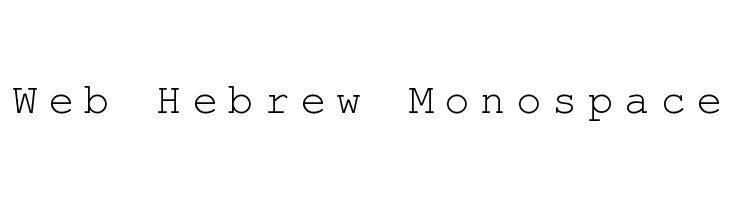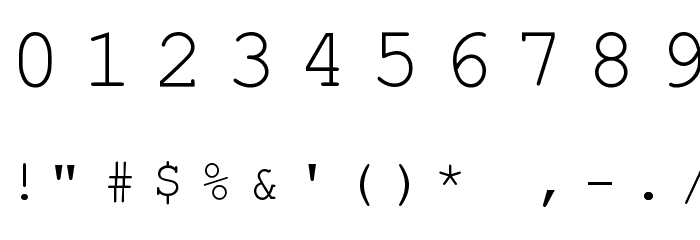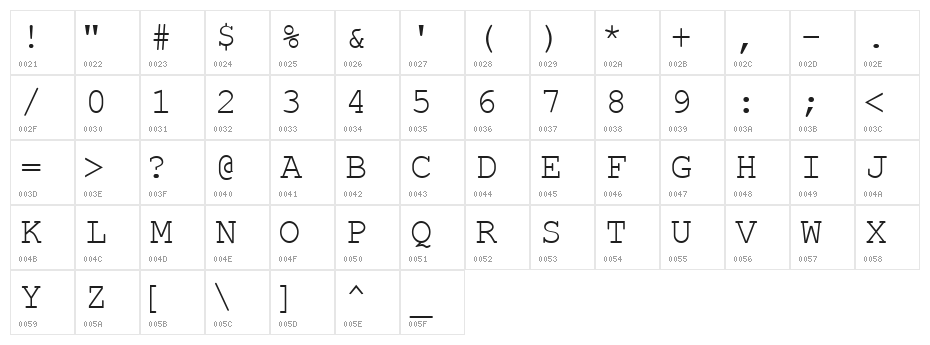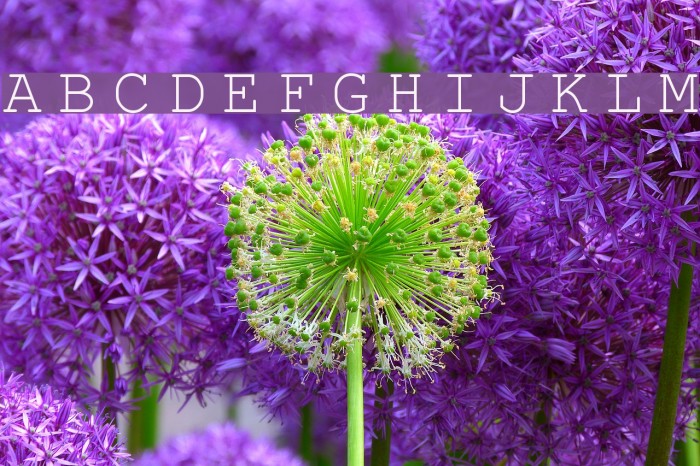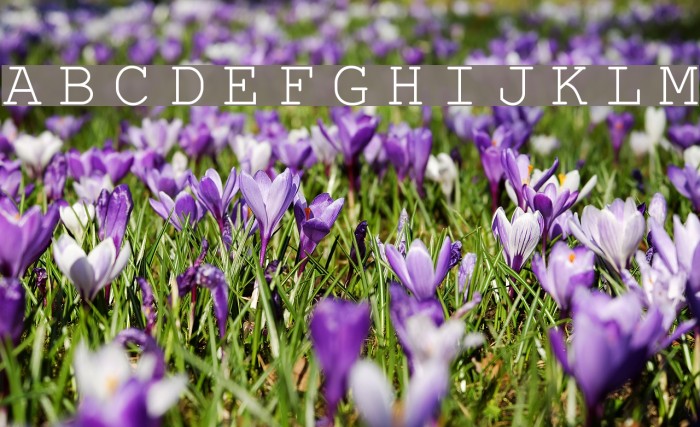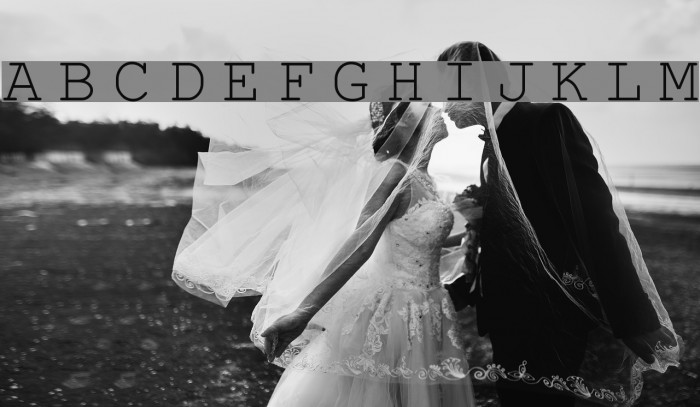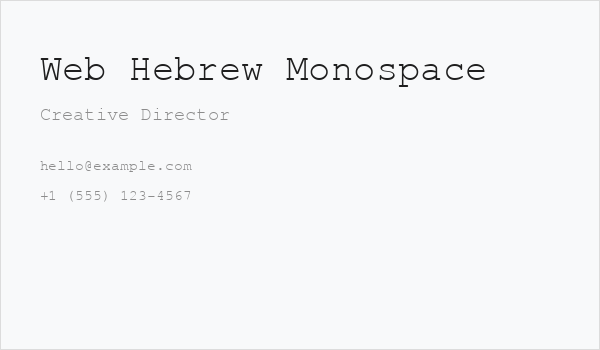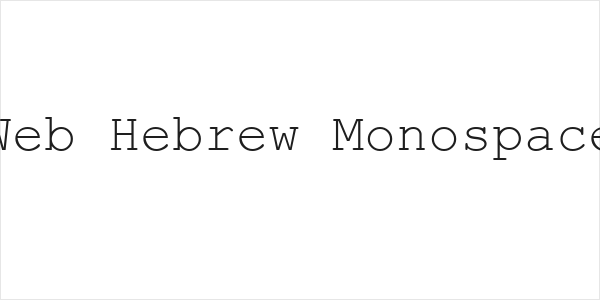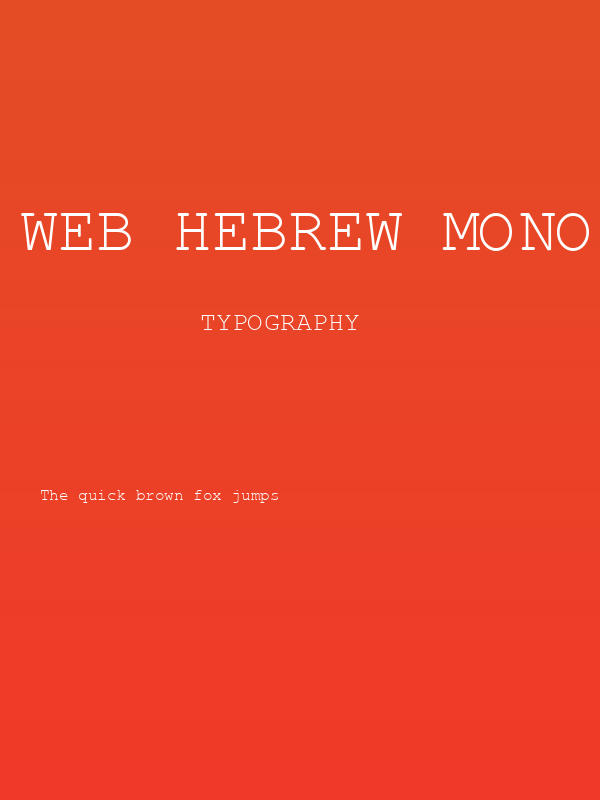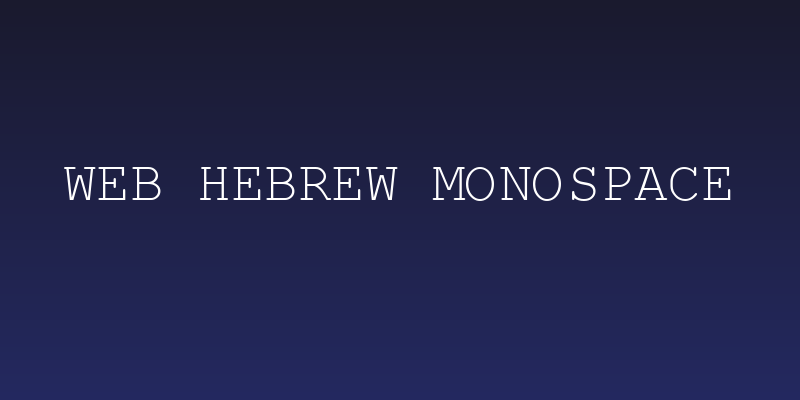
Web Hebrew Monospace Font
Web Hebrew Monospace Description
This font is a monospaced typeface characterized by its uniform character width, making it ideal for coding and tabular data. Each letter and symbol occupies the same horizontal space, providing a clean and organized appearance. The design is simple and straightforward, with minimal contrast between thick and thin strokes. The characters are well-defined, with clear distinctions between similar shapes, such as 'I' and 'l'. The font maintains a consistent baseline and x-height, ensuring readability across various sizes. Its geometric structure gives it a modern yet timeless feel, suitable for both digital and print applications.
Use CaseCoding, Technical documentation, Data tables
Proposed ProjectsSuitable for programming environments, data tables, technical documentation, and any project requiring precise alignment.